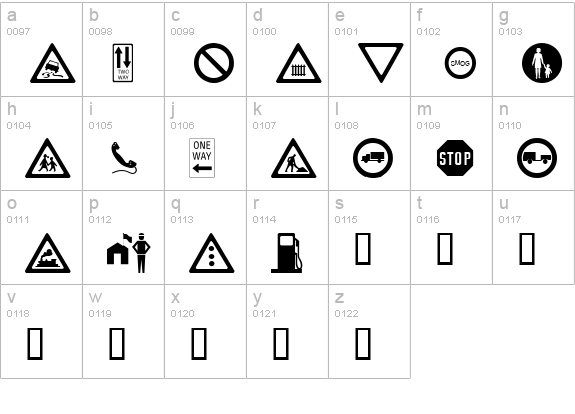
wmroadsigns Font Details
The wmroadsigns font is a modern and sleek typeface inspired by the clean lines and simplicity of road signs. This versatile font is perfect for creating signage, posters, logos, and more with its bold and eye-catching design. With a contemporary look and easy readability, wmroadsigns is sure to make your designs stand out. Best of all, the wmroadsigns font is available for free download at FontsMarket.com. Simply visit the website to get your hands on this fantastic font and start incorporating it into your projects today. Don't miss out on this amazing opportunity to enhance your design work with the wmroadsigns font - download it now for free!